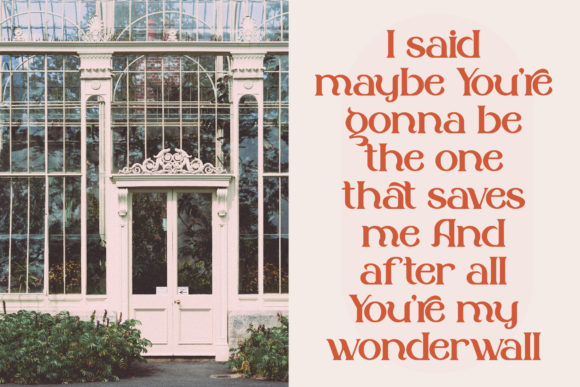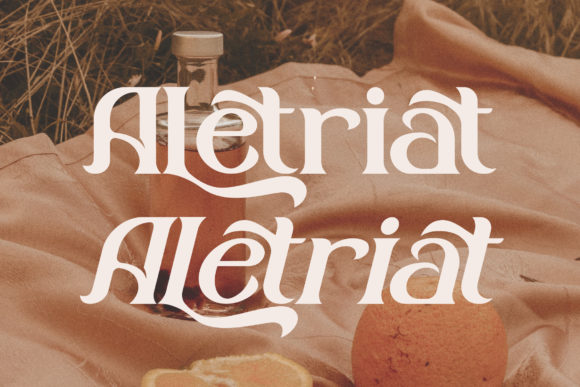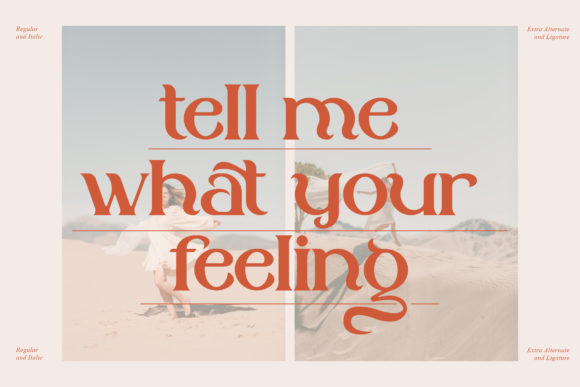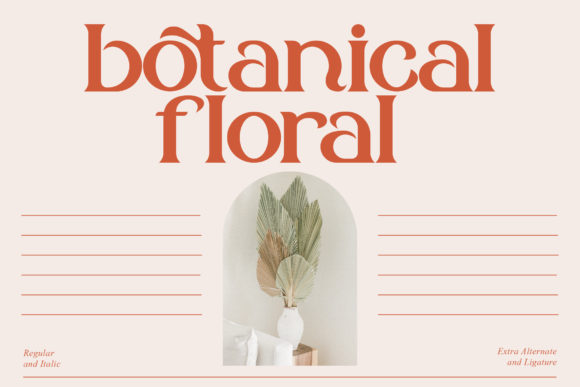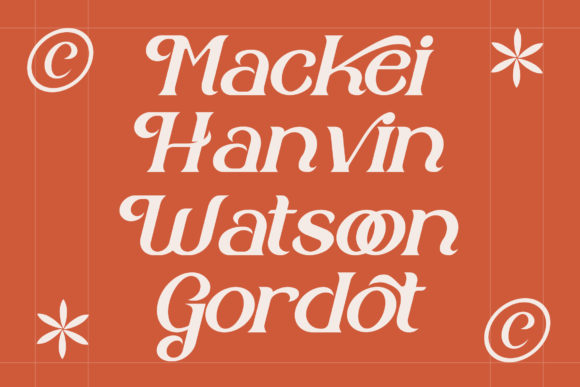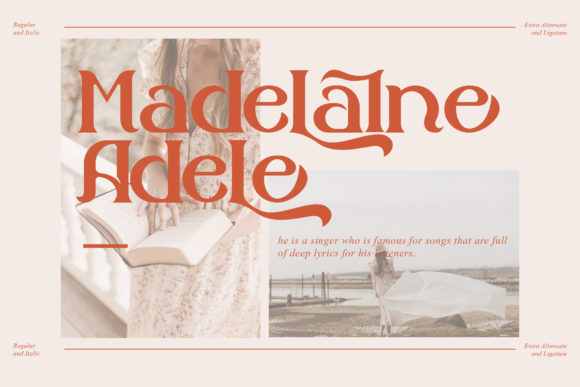
The Elegance of Aletriat Font: A Designer’s Delight
I’ll never forget the time I was working on a luxury fashion brand’s logo design project. My client wanted a font that exuded elegance, sophistication, and a touch of modernity. I scoured the internet, tried out countless fonts, but nothing seemed to fit the bill. That was until I stumbled upon Aletriat Font. ✨
This classic serif font has a unique style that instantly elevated my design game. Its modern look and feel made it perfect for the luxury brand’s logo, and I knew right then and there that I had to share my discovery with fellow designers and creative enthusiasts.
An Honest Review of Aletriat Font
• ✨ Elegant and sophisticated design that’s perfect for luxury brands
• ✅ Modern look and feel that sets it apart from traditional serif fonts
• 🔥 PUA encoded, making it easy to access glyphs and swashes
• 💻 Highly versatile and can be used for a variety of design projects, from logos to magazines
While Aletriat Font is an amazing addition to any design project, there are a few things to keep in mind: 🤔
• ⚠️ Some users may find the font’s classic serif style a bit too traditional for their taste
• ⚠️ May require some experimentation to get the perfect combination of glyphs and swashes
Aletriat Font is PUA encoded, which means you can access a wide range of glyphs and swashes to elevate your design. Here’s how to make the most of OpenType features:
The Backstory of Aletriat Font
Aletriat Font was designed with the intention of creating a classic serif font with a modern twist. Inspired by traditional typography, the designer aimed to create a font that would be both elegant and sophisticated, yet versatile and modern. 💻
Q: What is Aletriat Font?
A: Aletriat Font is a classic serif font with a unique style and modern look, perfect for luxury brands, fashion designs, and high-end projects.
Q: Is Aletriat Font PUA encoded?
A: Yes, Aletriat Font is PUA encoded, making it easy to access glyphs and swashes.